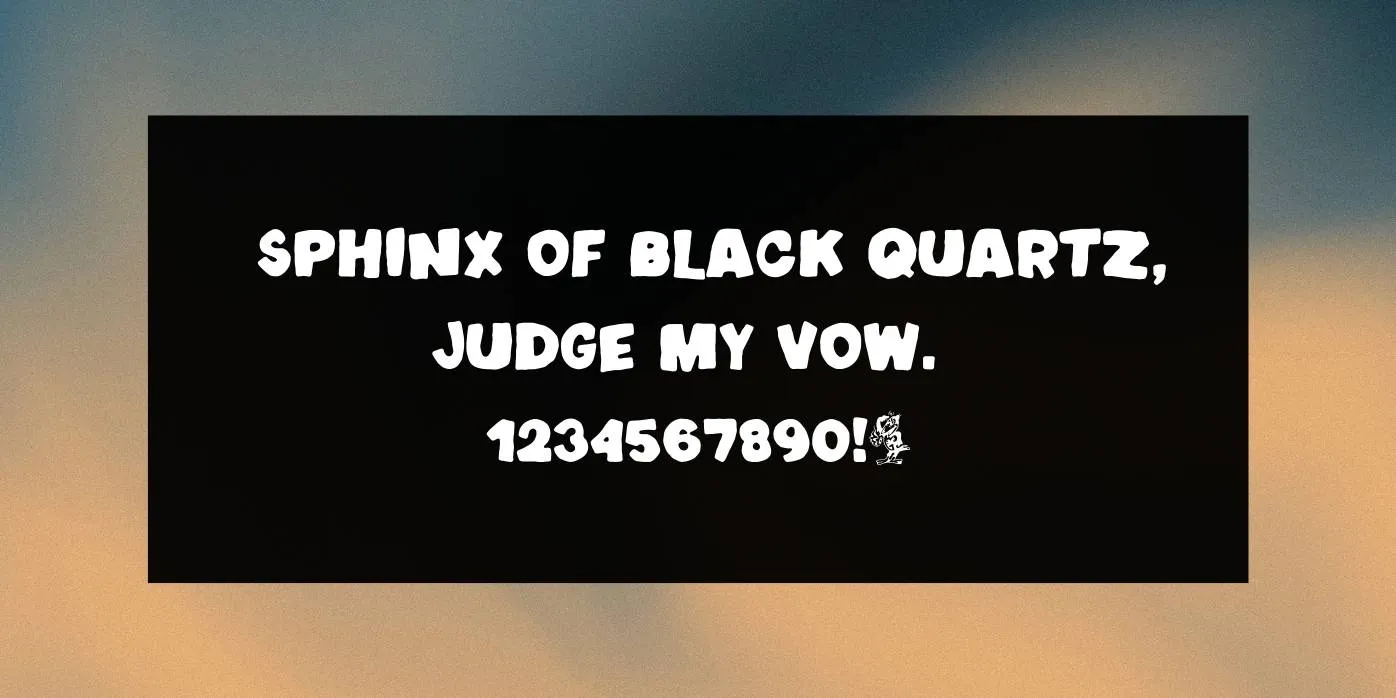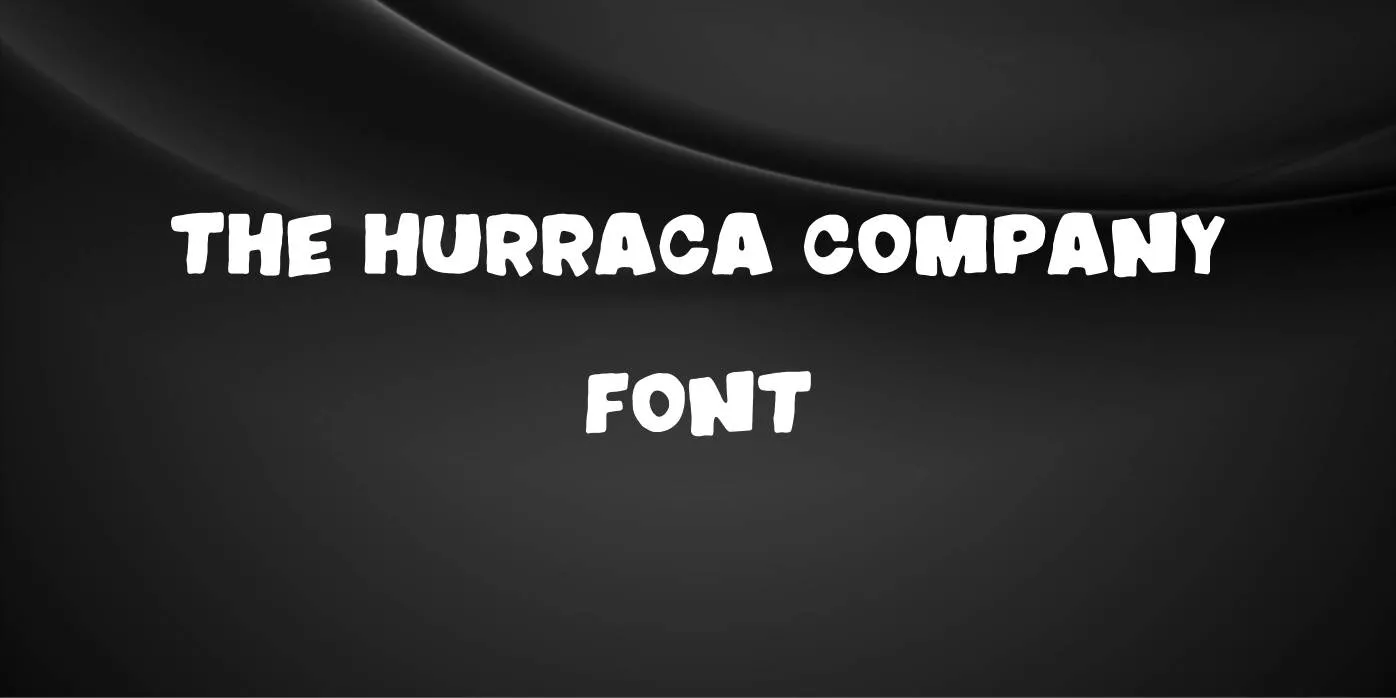
Hurraca Company Font
The Hurraca Company font was created in 1999 by a small group of designers who wanted to make a clean and legible fancy font. The name of the font comes from the Spanish word for a hurricane, which is hurac√°n. The designer of this font wanted to create a font that was easy to read and had a clean, modern look. The font has a large x-height, which makes it easier to read in small sizes.
This typeface also has a wide range of weights and styles, which makes it versatile and suitable for use in a variety of applications. The font is available in both desktop and Webfont formats. The desktop version of the font includes a full character set, which includes all the accented characters needed for European languages. For making something really cool, please try the salmon script font for your valuable design project.